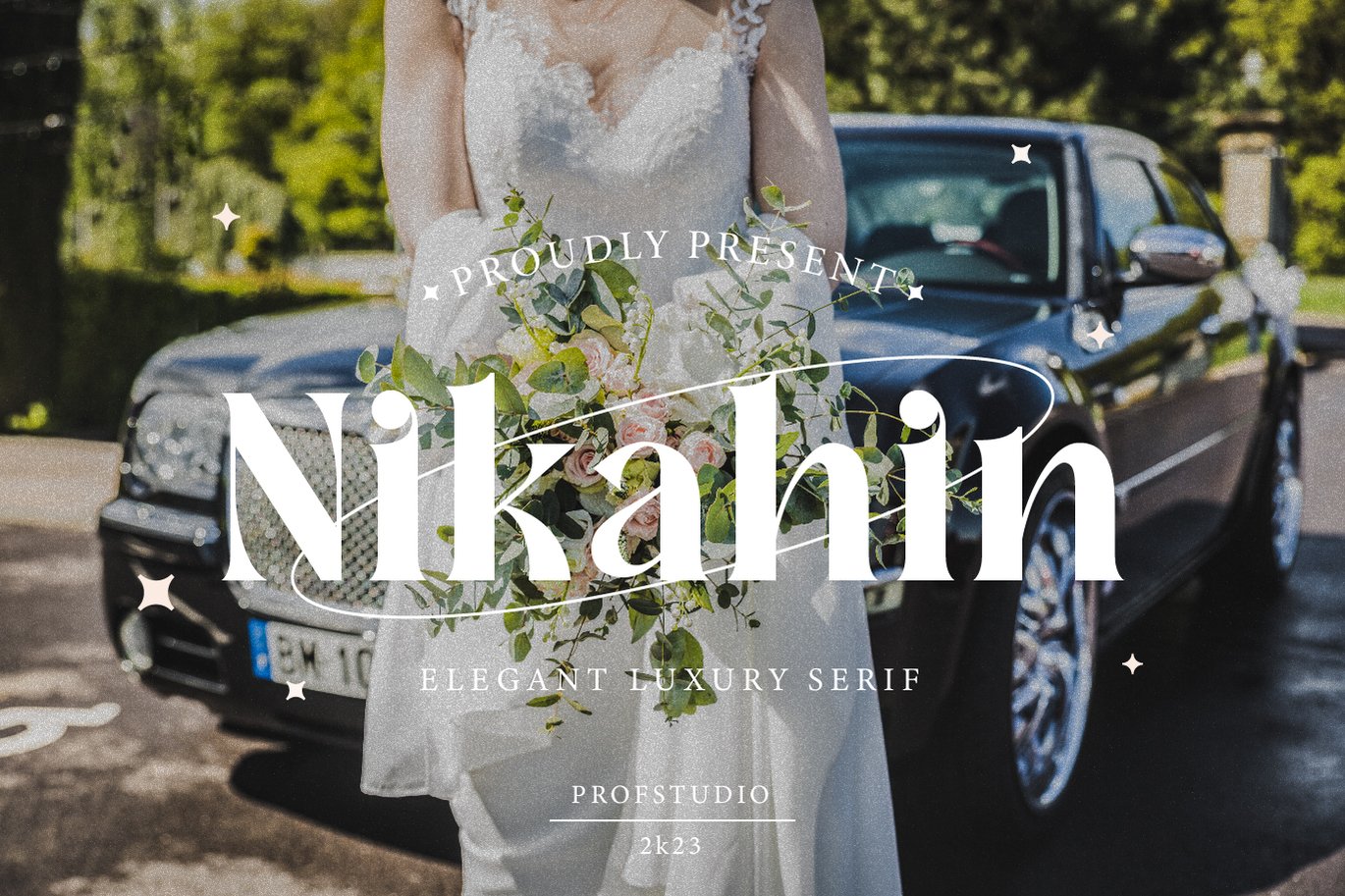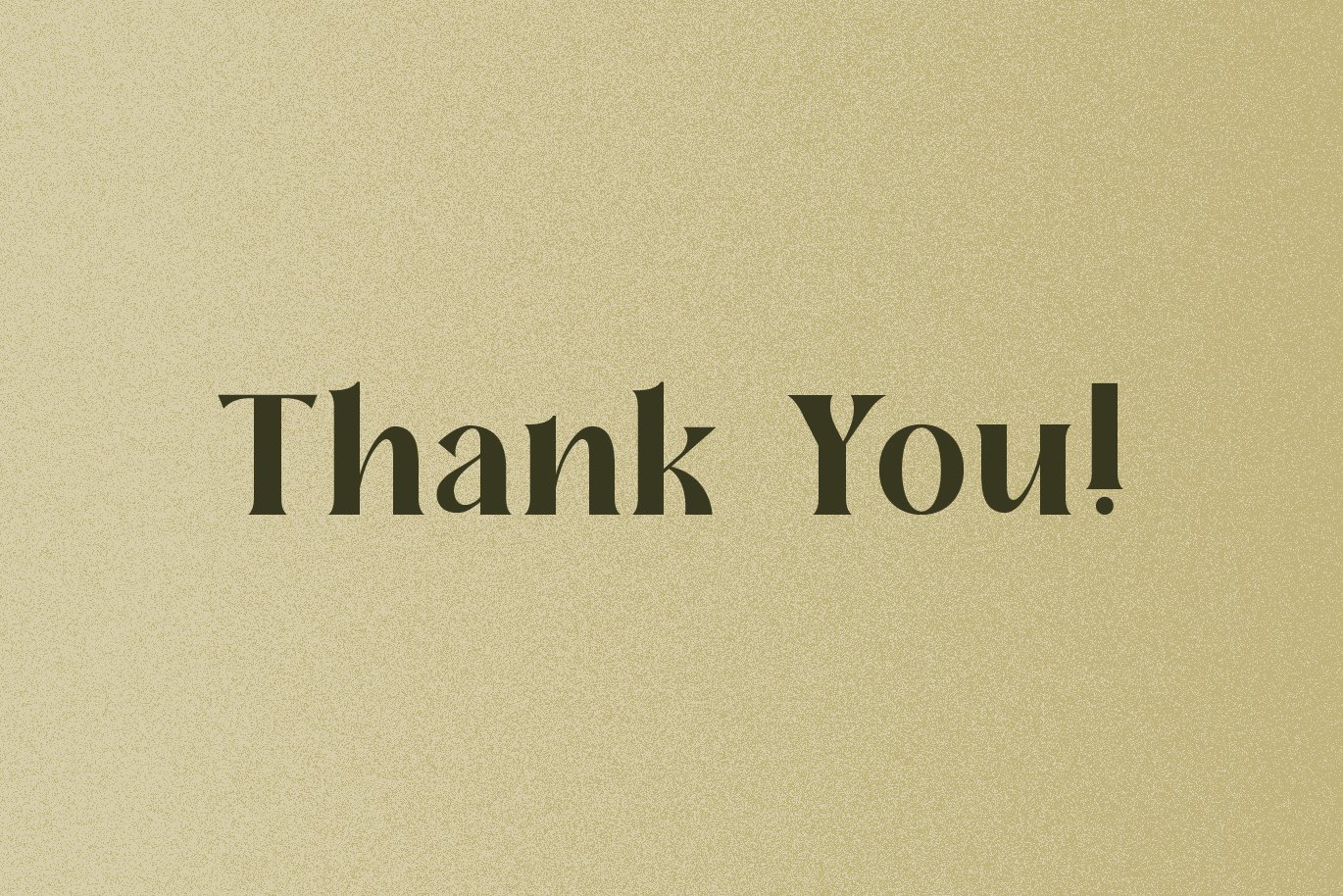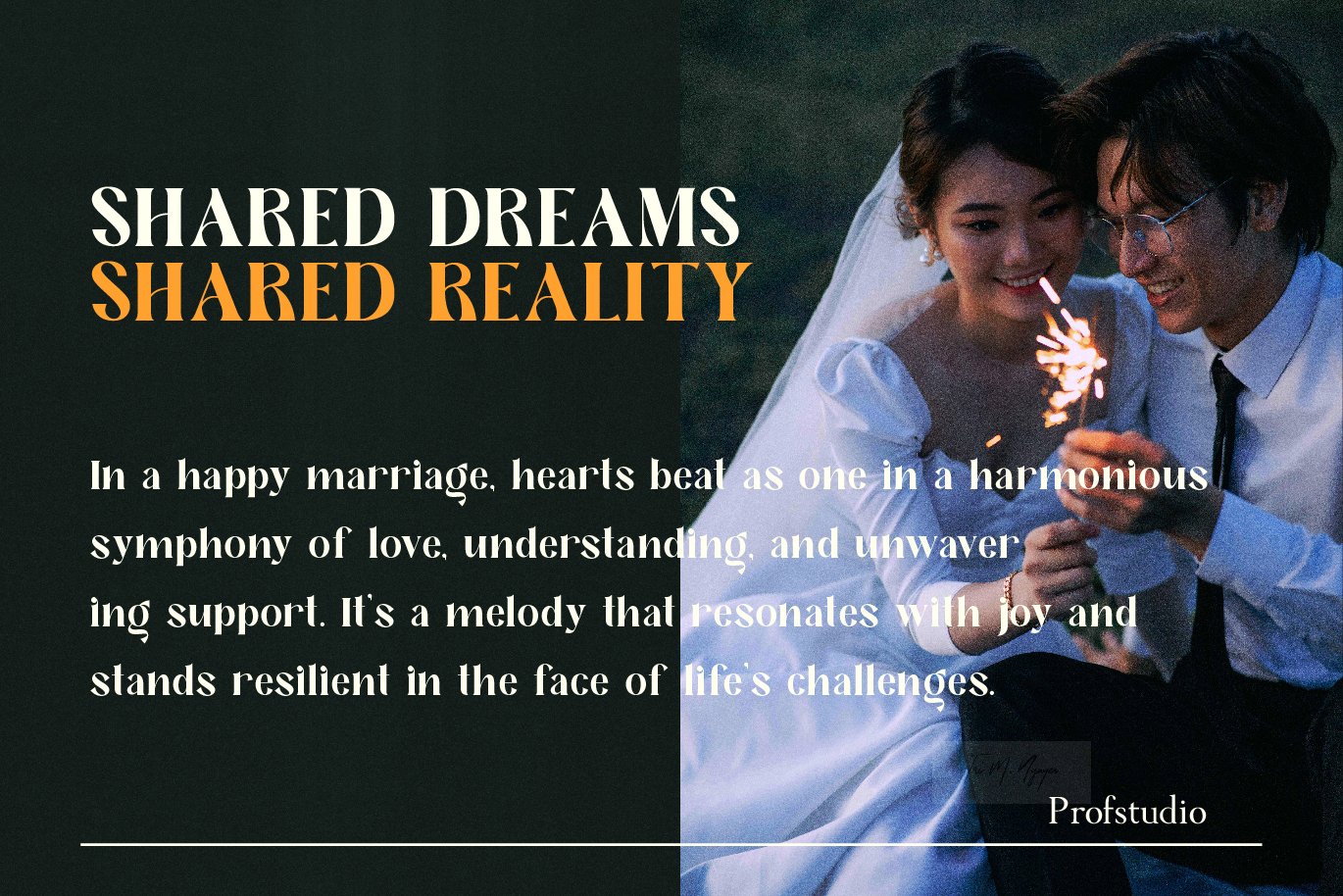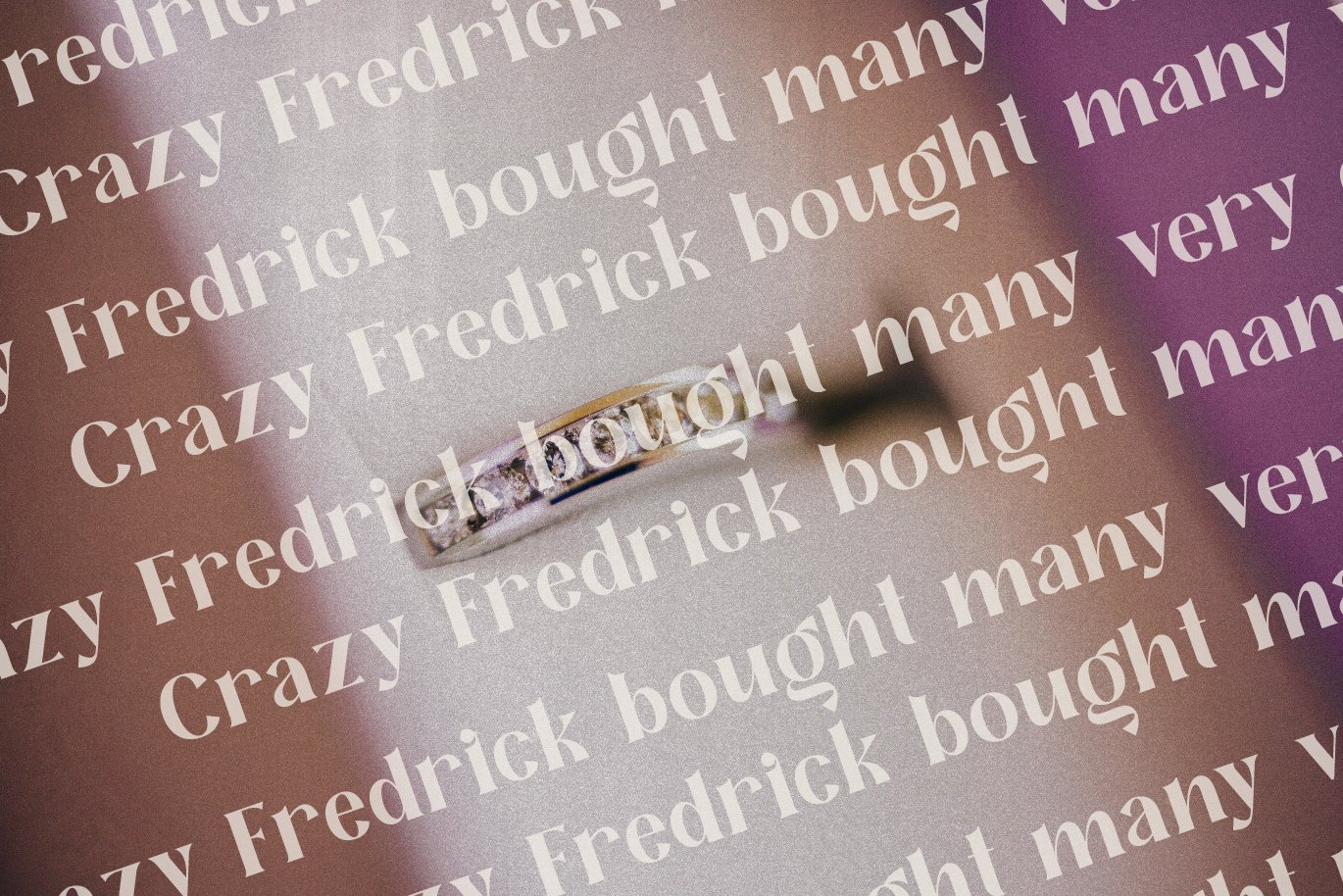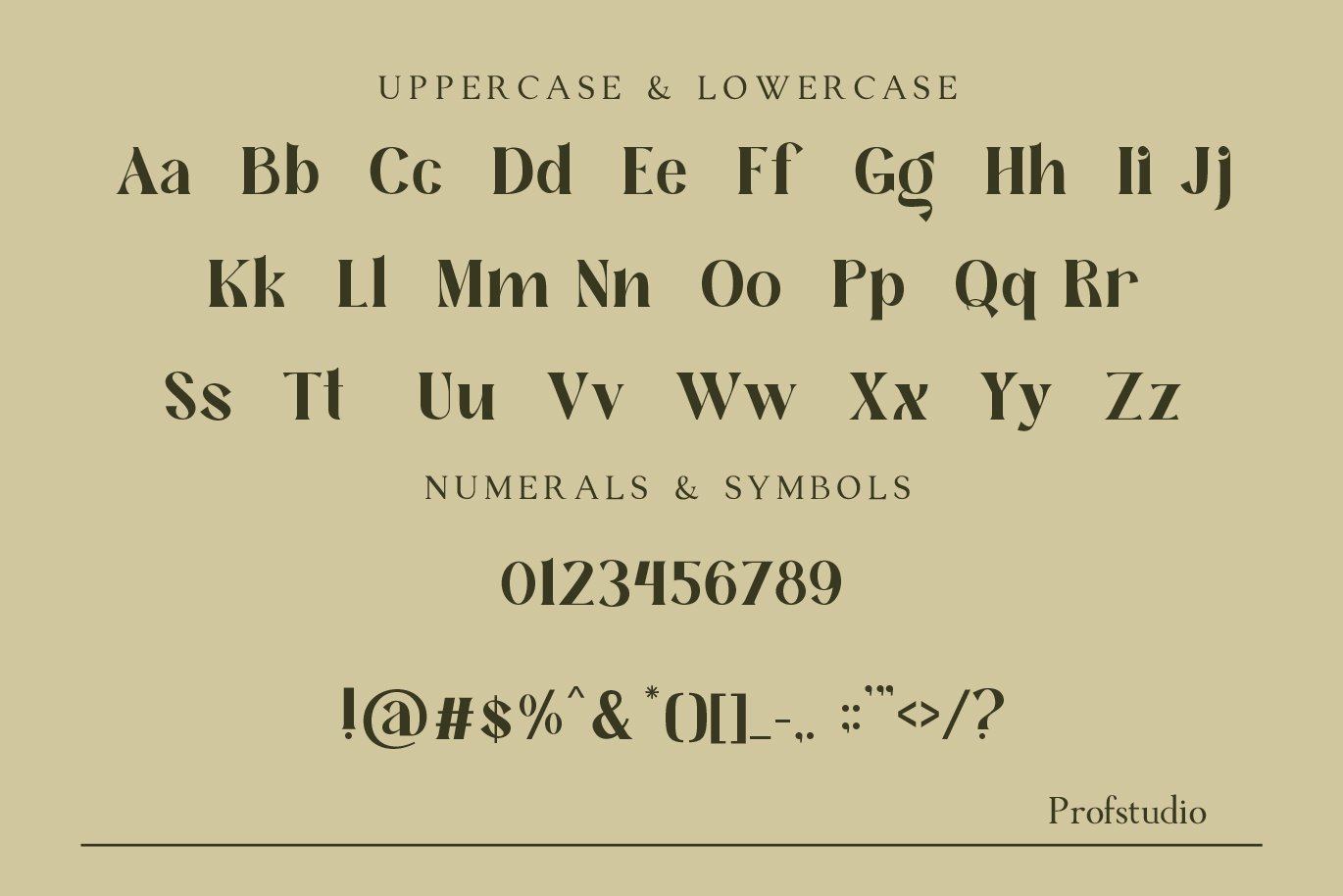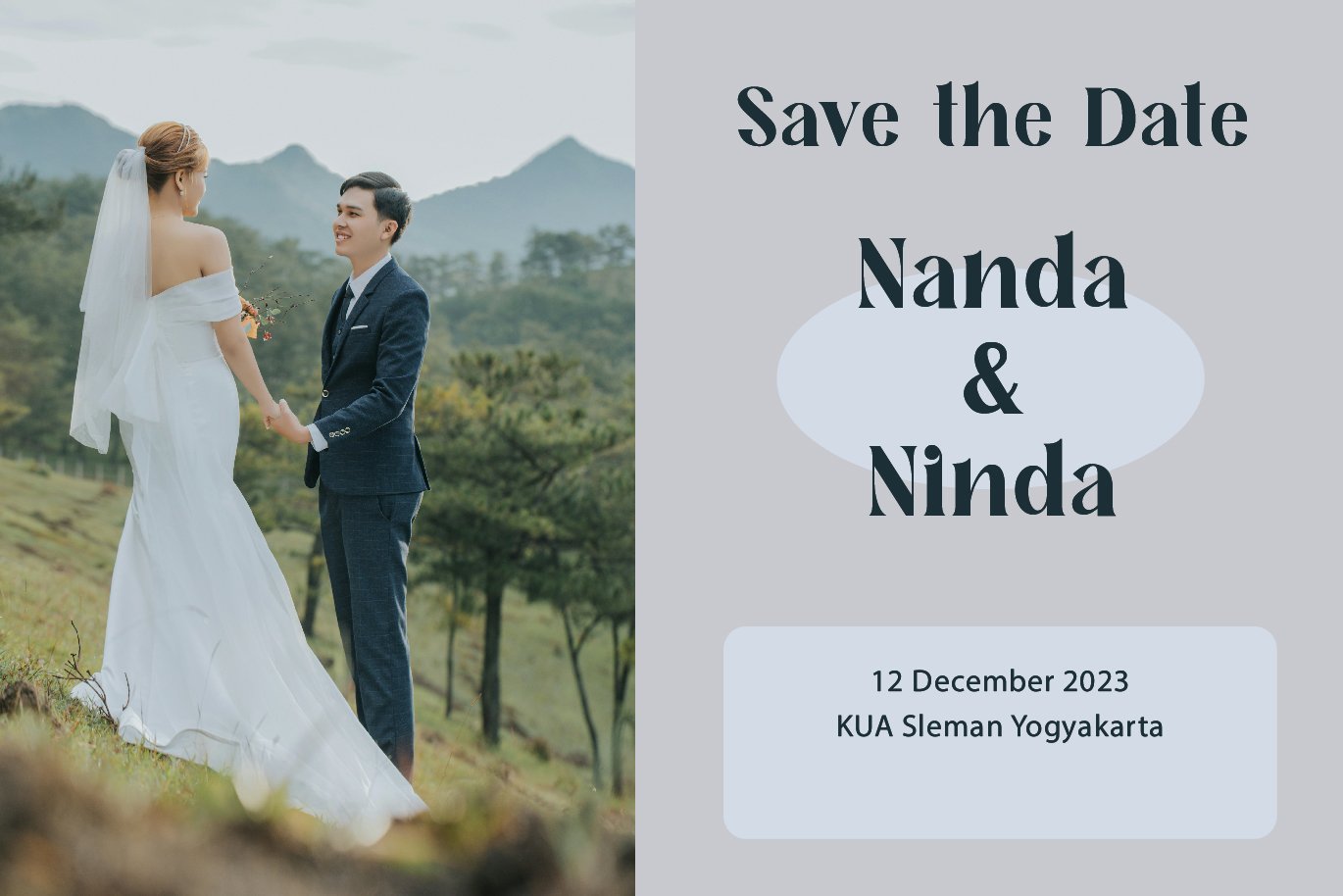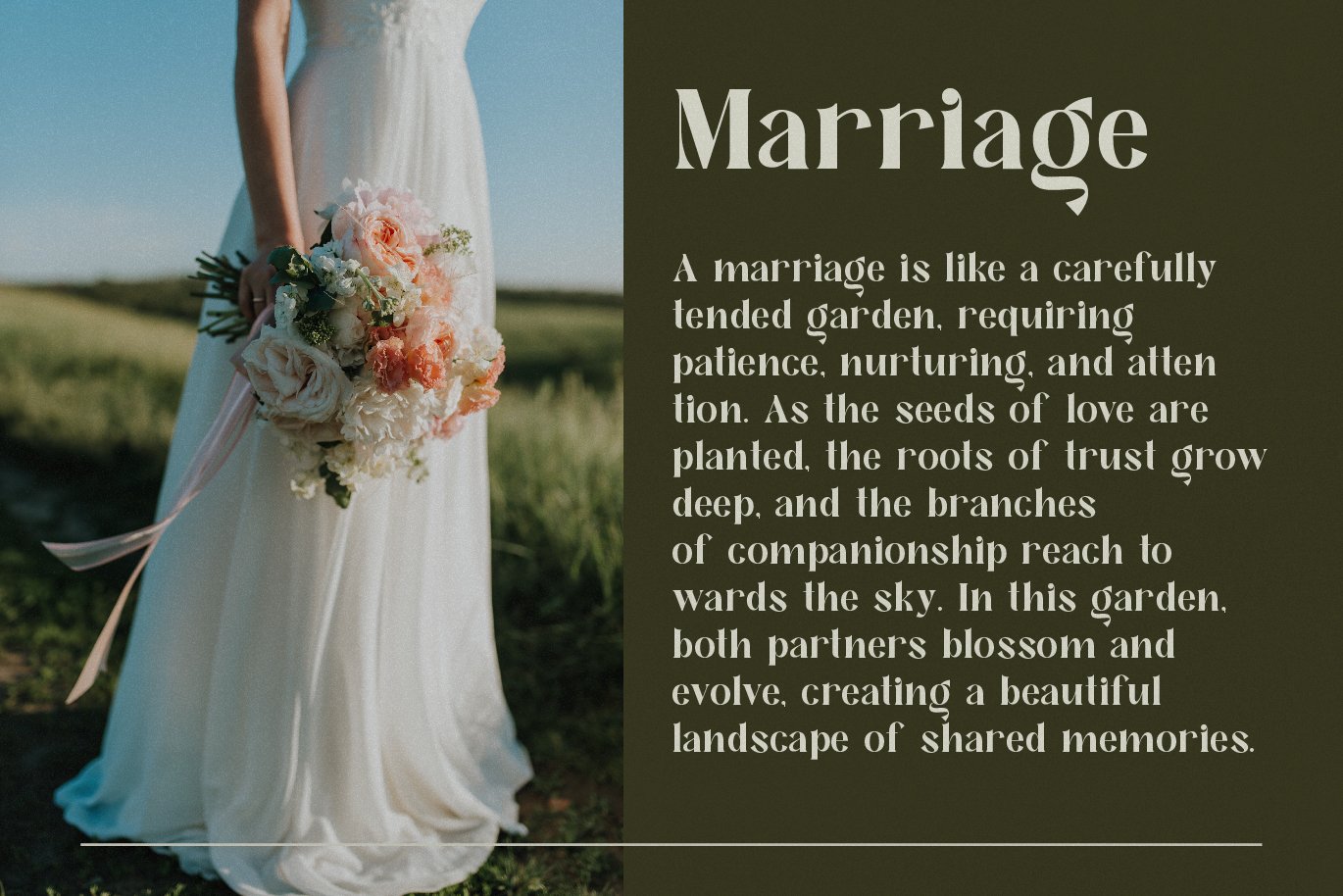
Nikahin – Elegant Luxury Wedding Font
Nikahin – stylish Script which can be interpreted professional. we keep this font looks elegant, premium, modern, readable, stylish, catchy and easy to use.
Nikahin – is the great choice for watermark on photography, branding, wedding event, signature or signature logo design, quotes, album cover, magazine, business card and many other design project. Nikahin here to make your work to high level!!!